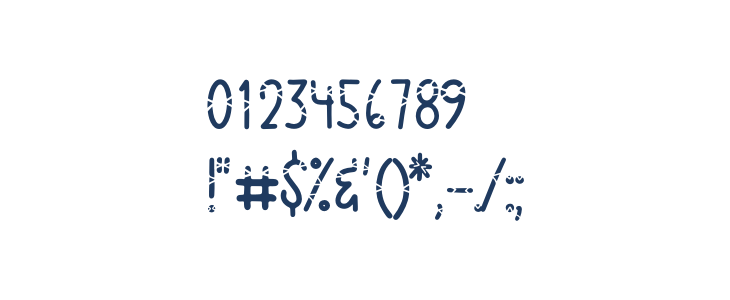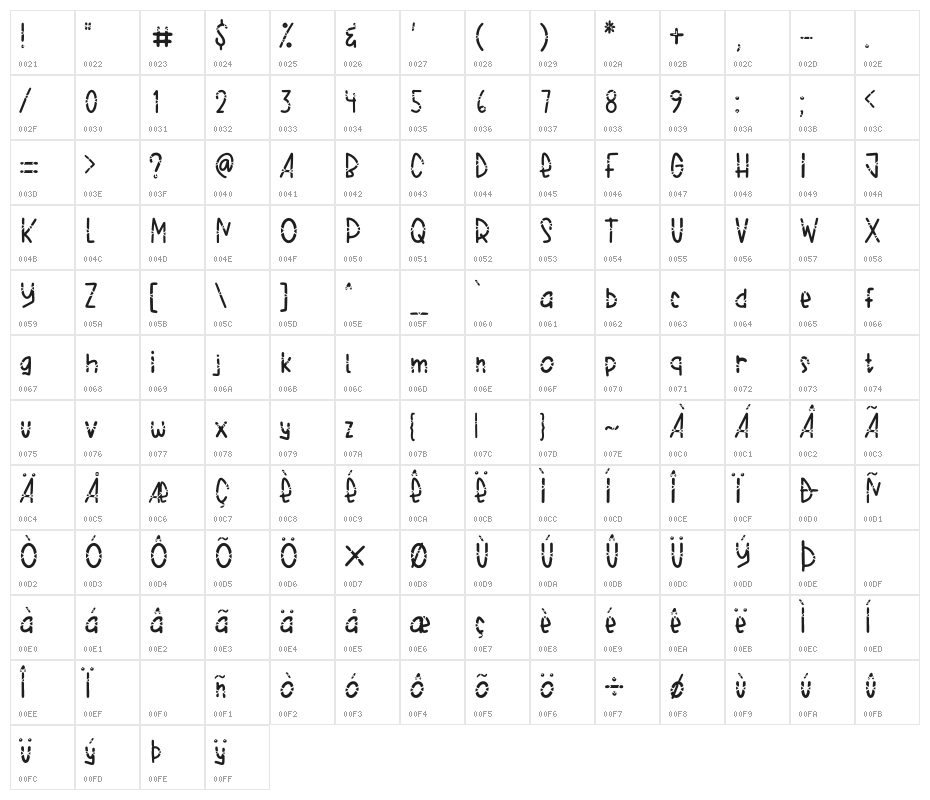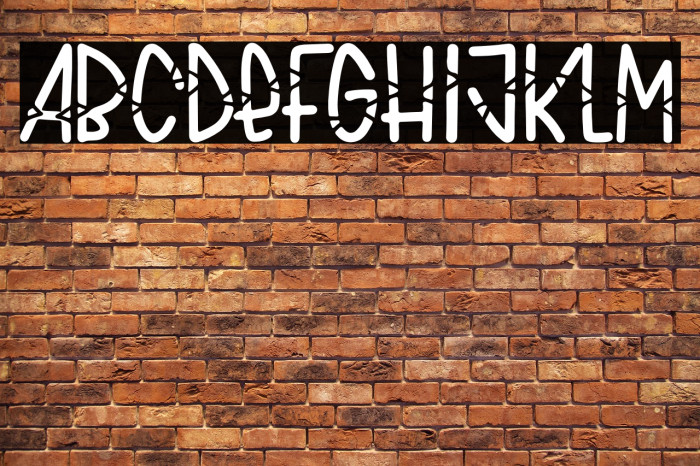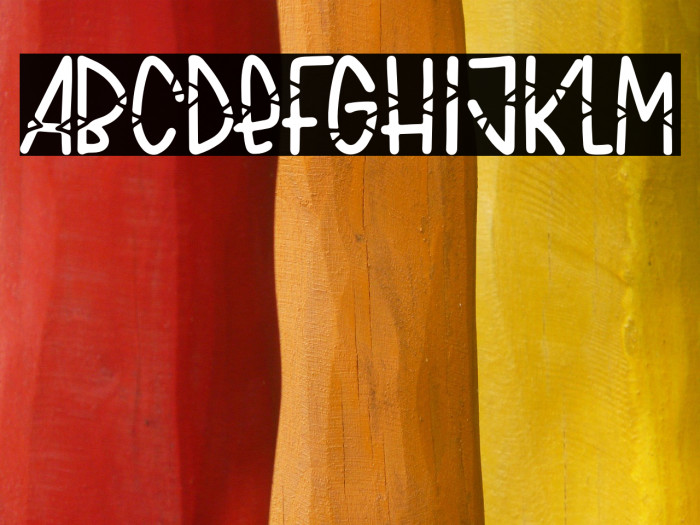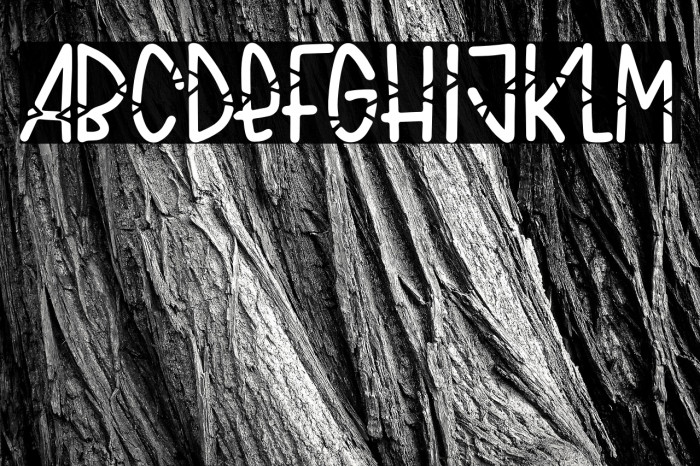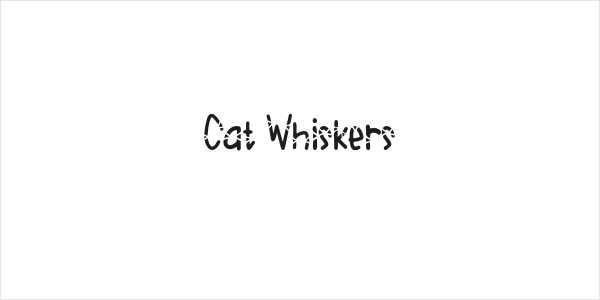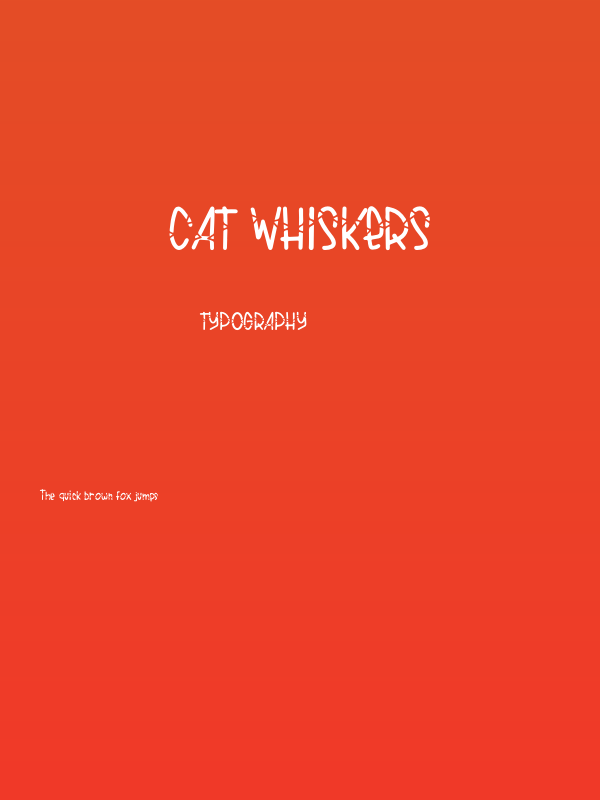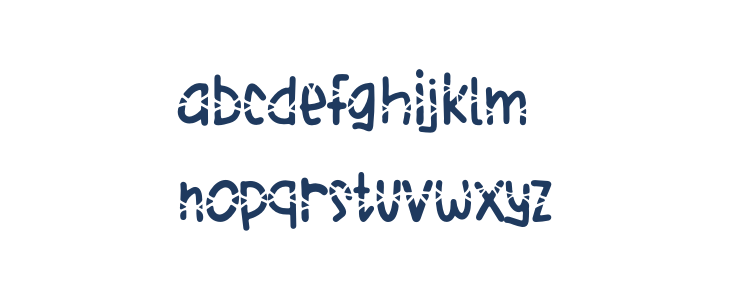
Cat Whiskers Font
Cat Whiskers Description
This playful and whimsical font features a unique design with cut-out sections that resemble whiskers, giving it a distinctive and fun appearance. The characters are bold and rounded, with a consistent thickness throughout, creating a cohesive look. The uppercase and lowercase letters maintain a uniform style, while the numbers and special characters integrate seamlessly with the overall design. This font's quirky and artistic nature makes it ideal for creative projects that require a touch of personality and flair.
| Overall Style | Whimsical |
| Proposed Projects | Ideal for children's books, playful branding, greeting cards, and creative posters. |